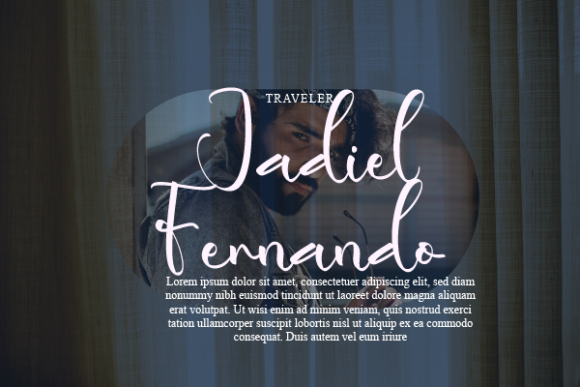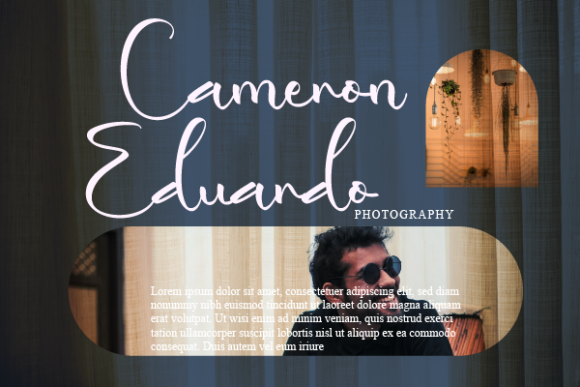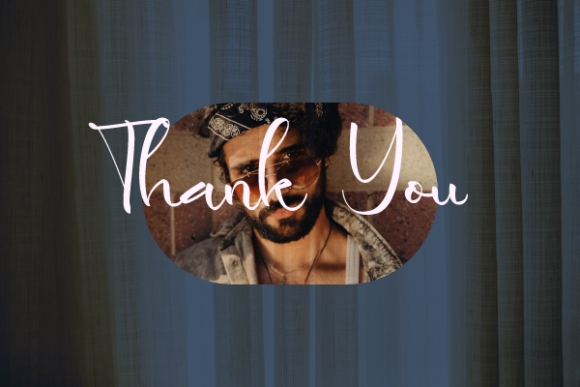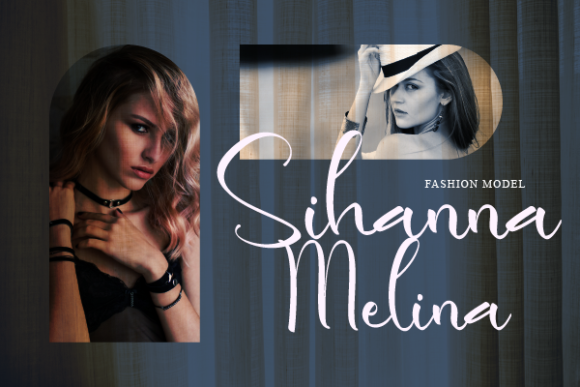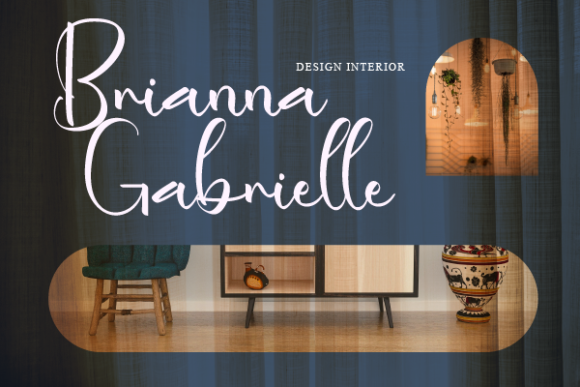
Eritany Annika Font
About Eritany Annika Font
Eritany Annika is an enchanting handwritten font. This versatile script font has a wide spectrum of applications ranging from greeting cards to headlines and is guaranteed to add a romantic feel to your next project.